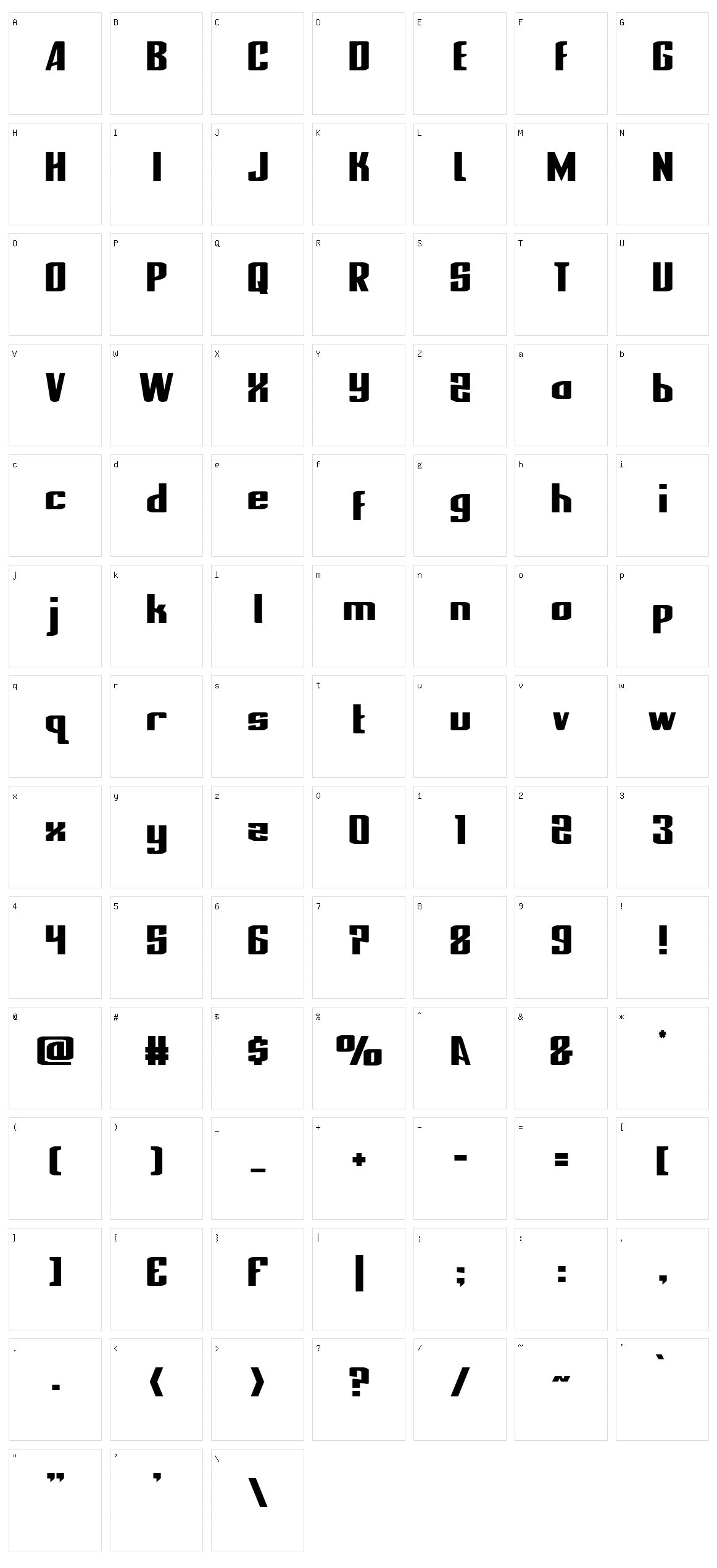
National Express
Description: The free font National Express is carefully designed by Iconian Fonts, showcasing a thoughtful balance of creativity and usability and belongs to the Techno font family. When you download the ZIP file, it contains only 745.57 KB of font files, making it lightweight and quick to download. Please review the license details below to understand permitted usage and distribution rights. If license information is not available, we recommend using this font for personal projects only or contacting the author directly for commercial usage permissions.
This font comes with the following 21 versions: Regular, Italic, Condensed, Condensed Italic, Expanded, Expanded Italic, Xtra-Expanded, Xtra-Expanded Italic, 3D, 3D Italic, Halftone, Halftone Italic, Laser, Laser Italic, Gradient, Gradient Italic, Chrome, Chrome Italic, Semi-Italic, Super-Italic and Leftalic.